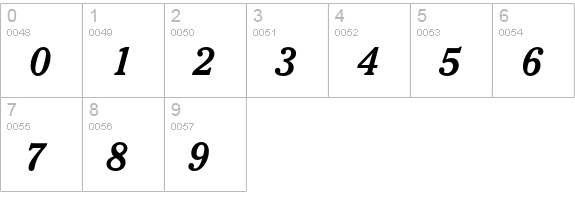
Cheltenham Bold Italic Headline is a strong, high-contrast, italic variant in the Cheltenham typeface family \xE2\x80\x94 well suited to headlines, attention-grabbing titles, and strong calls-to-action.
Cheltenham Bold Italic Headline font is a stylish and eye-catching typeface that exudes sophistication and elegance. Its bold and italic design makes it perfect for creating attention-grabbing headlines and titles. With its sleek and modern look, this font is sure to make your designs stand out. And the best part? Cheltenham Bold Italic Headline font is available for free download at FontsMarket.com. You can easily access this beautiful font and use it in your projects without any cost. Don't miss out on the opportunity to add this stunning font to your collection today!